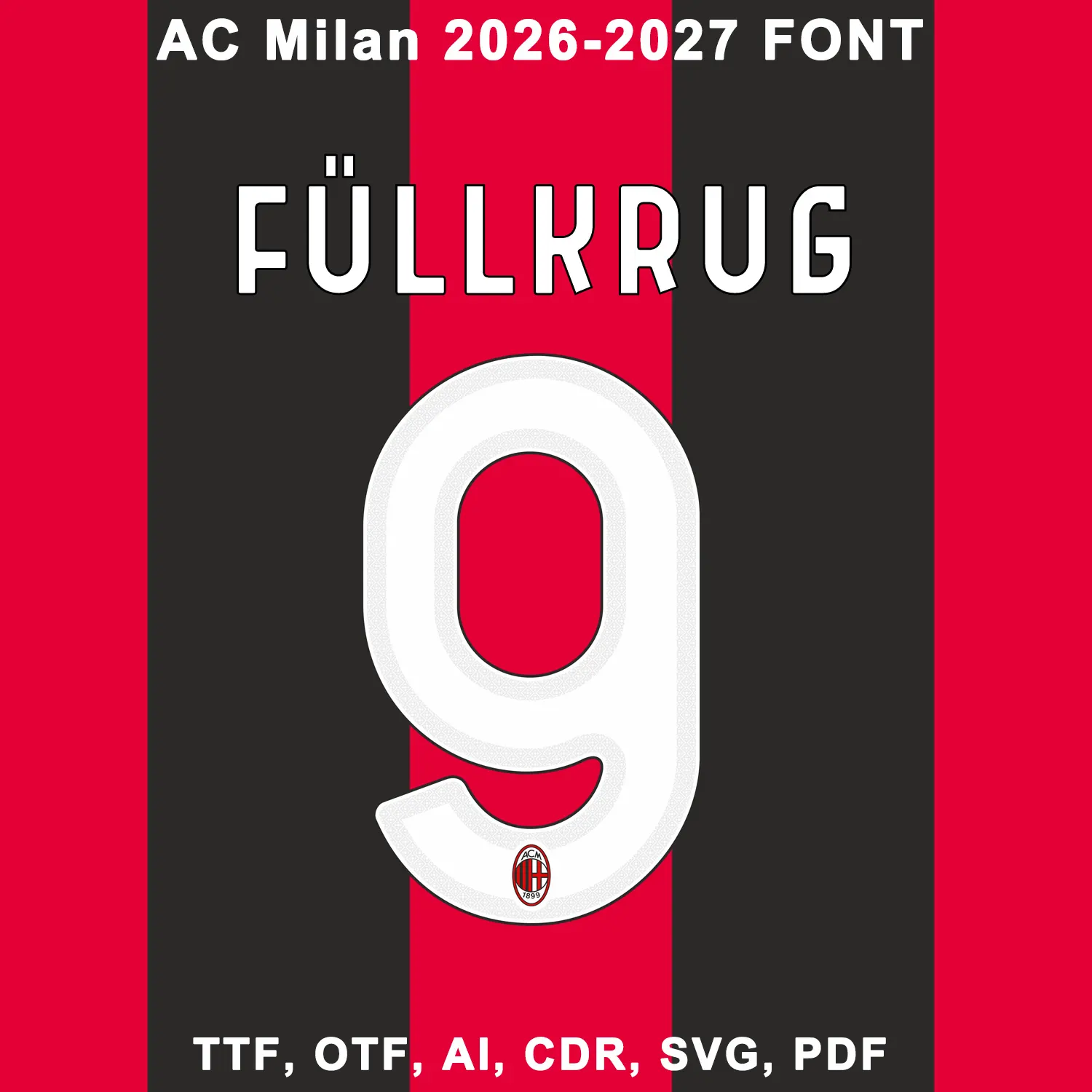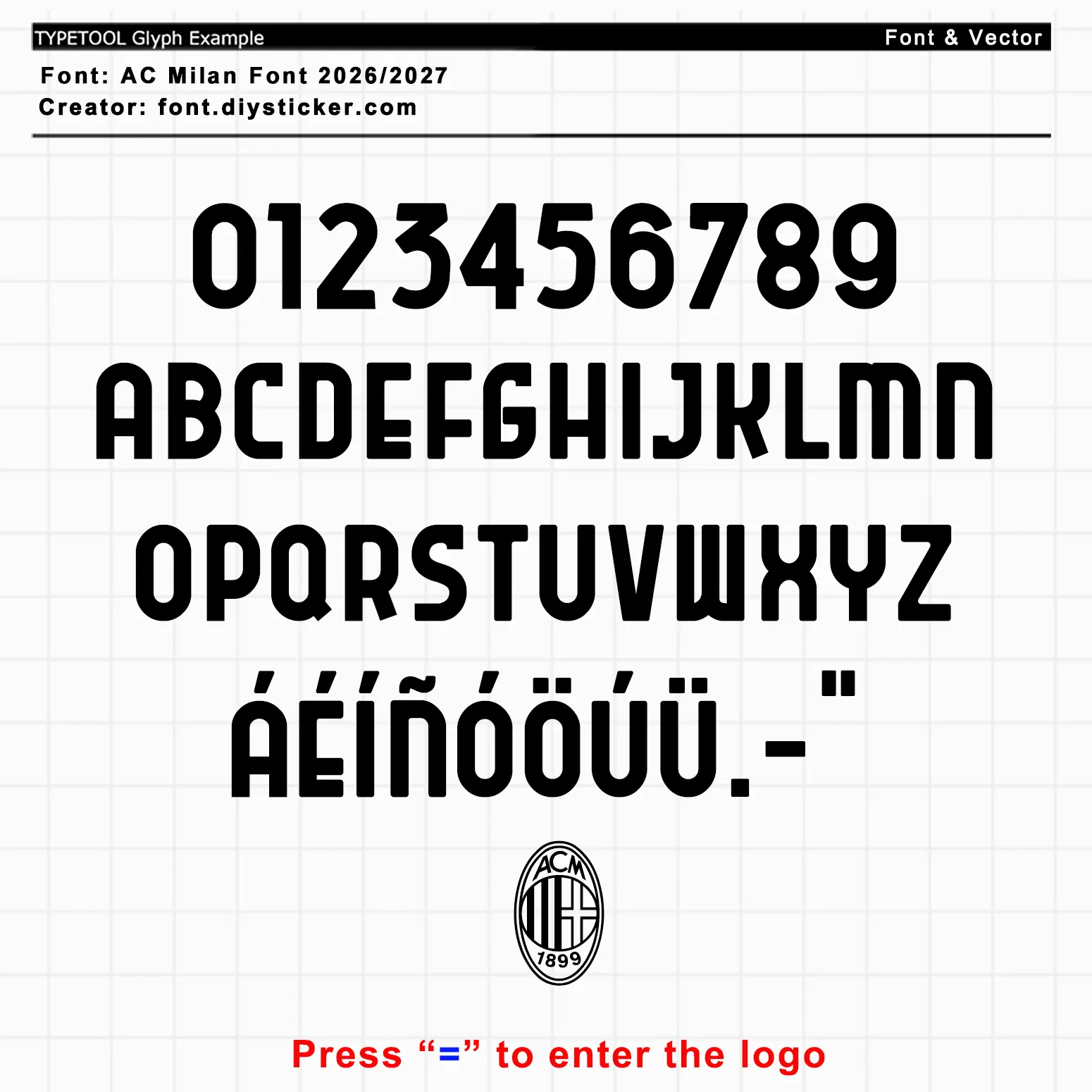
Overview of AC Milan Font 2026/2027 Kit
Our professionally refined AC Milan Font 2026/2027 Kit is officially matched to Puma’s new season jersey typography standard for AC Milan’s 26-27 campaign, meticulously restored based on official jersey print samples released by the club and apparel partner Puma. This complete font set covers full 0-9 numerals, uppercase A-Z Latin letters, plus all common European accented glyphs including Á, Ü, Ñ, É, Ö and special punctuation marks, fully meeting the naming requirement of overseas football player surnames like FÜLLKRUG shown on official match jerseys. Every character outline is traced pixel-perfectly to eliminate deformation during scaling, which is the core advantage distinguishing this AC Milan Font 2026/2027 from rough free font resources scattered online.
For jersey custom shop operators, sports memorabilia collectors and graphic designers focusing on football apparel, this AC Milan Font 2026/2027 is an essential digital asset. Instead of spending dozens of hours manually redrawing each letter and number from jersey photos, users can directly install the font files or edit editable vector source files to finish jersey nameplate design within minutes.Browse other Serie A club jersey font kits,Check official AC Milan 2026/27 jersey launch info on club official site. All glyphs strictly follow the thick blocky geometric design language adopted by AC Milan’s 2026/27 home and away jerseys, consistent with the thick stroke and closed aperture feature seen on the No.9 FÜLLKRUG home jersey print preview.
Multiple Application Scenarios for AC Milan Font 2026/2027 Kit
The versatile AC Milan Font 2026/2027 Kit can be applied across nearly all football apparel derivative fields. First, customized fan jersey production is the largest application scenario: retail jersey stores use this font to customize personalized name and number printing for AC Milan home, away and third kits ordered by global fans, perfectly restoring official match jersey visual effect. Second, football memorabilia designers apply the font to print replica retro jerseys, framed jersey artworks and fan collectible merchandise. Third, digital content creators utilize TTF and SVG files to make football poster, match preview graphic and social media jersey mockup images for fan blogs and football accounts.
Additionally, amateur football league teams adopting AC Milan-style red-black striped kits also pick this AC Milan Font 2026/27 to make team uniform numbering, thanks to Puma’s widespread sponsorship across grassroots football apparel. Every glyph in our font set is checked repeatedly against real match worn jersey photos to make sure even small detail like stroke fillet is consistent with official Puma printed fonts, avoiding the awkward mismatch problem caused by wrong font selection on finished jerseys.
A: Yes, our AC Milan Font 2026/2027 includes Á, É, Ü, Ö, Ñ and other commonly used diacritic glyphs as displayed on preview samples, fully cover mainstream European football player name spelling needs.